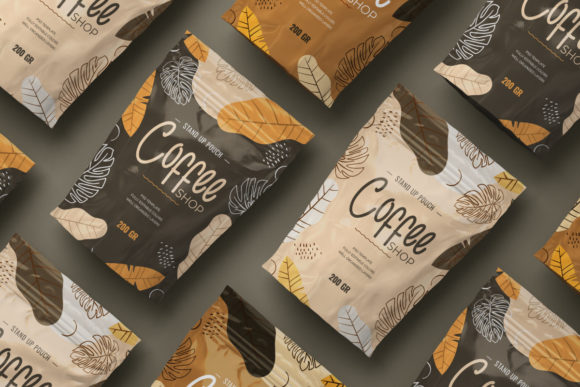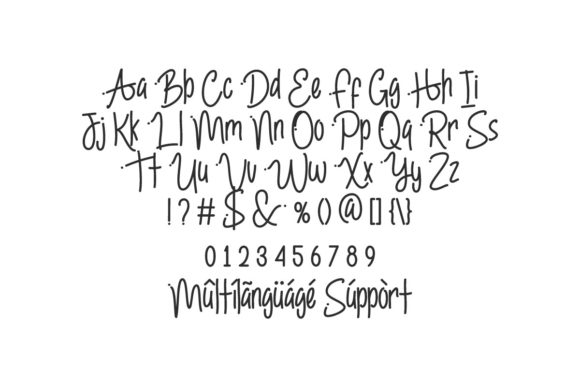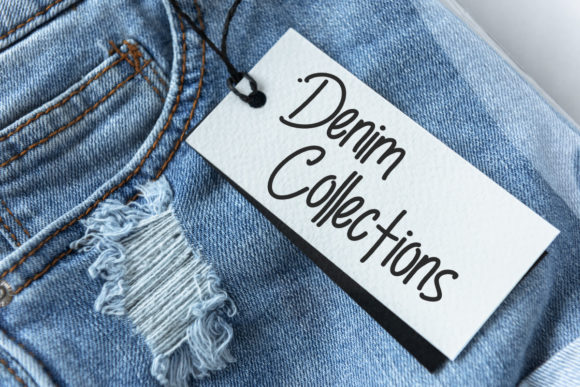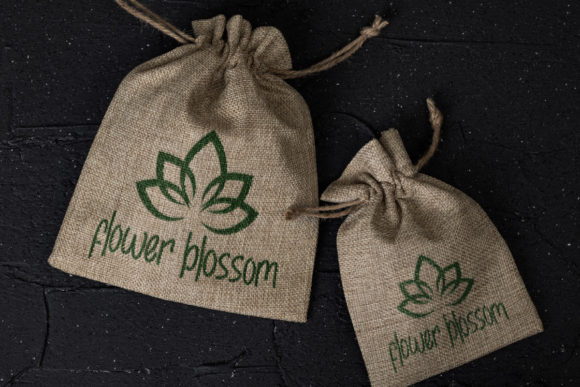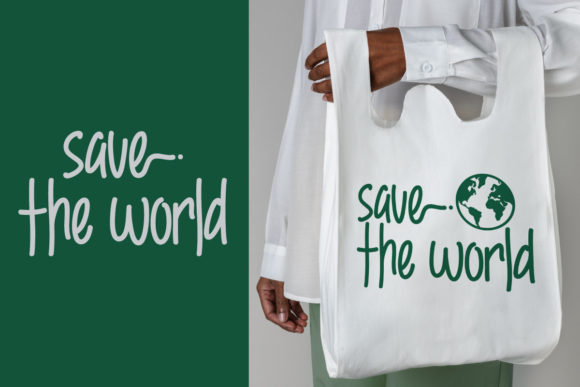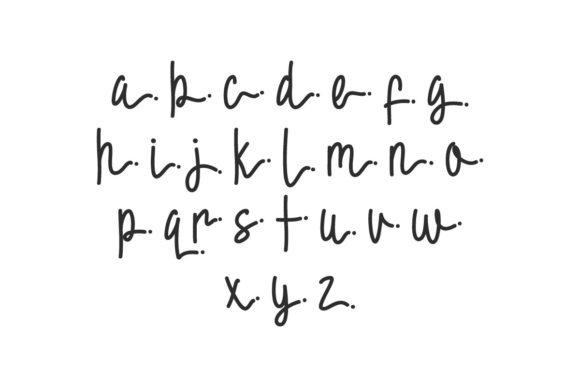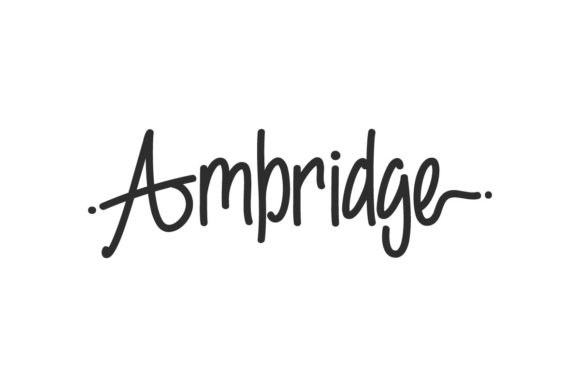
Introducing Ambridge Font: The Ultimate Handwritten Font for Creative Projects
Are you looking for a font that can add a touch of elegance and sophistication to your designs? Look no further than Ambridge Font! This beautiful and stylish handwritten font is perfect for creating stunning wedding invitations, gorgeous stationery art, eye-catching social media posts, and much more. In this article, we’ll dive into the world of Ambridge Font and explore its features, benefits, and uses.
What is Ambridge Font?
Ambridge Font is a modern handwritten font that boasts a unique and ravishing style. Its elegant and flowing lines make it perfect for designs that require a touch of sophistication and glamour. The font is carefully crafted to provide a beautiful and consistent look, making it ideal for a wide range of creative projects.
Features of Ambridge Font
- Handwritten style: Ambridge Font features a beautiful handwritten style that adds a personal touch to your designs.
- Elegant and sophisticated: The font’s elegant and sophisticated look makes it perfect for designs that require a touch of glamour.
- Consistent look: Ambridge Font is carefully crafted to provide a consistent look, ensuring that your designs look professional and polished.
- Multilingual support: The font supports multiple languages, making it perfect for designers who work with clients from around the world.
Benefits of Using Ambridge Font
So, why should you choose Ambridge Font for your designs? Here are just a few benefits of using this amazing font:
- Adds elegance to your designs: Ambridge Font adds a touch of elegance and sophistication to your designs, making them stand out from the crowd.
- Perfect for wedding designs: The font’s romantic and elegant style makes it perfect for wedding invitations, wedding stationery, and other wedding-related designs.
- Versatile: Ambridge Font can be used for a wide range of creative projects, from social media posts to business cards and brochures.
- Easy to read: The font is carefully crafted to be easy to read, making it perfect for designs that require a clear and concise message.
Uses of Ambridge Font
Ambridge Font is a versatile font that can be used for a wide range of creative projects. Here are just a few ideas to get you started:
- Wedding invitations: Create stunning wedding invitations that will leave a lasting impression on your guests.
- Stationery art: Use Ambridge Font to create beautiful stationery art, including greeting cards, thank you cards, and more.
- Social media posts: Add a touch of elegance to your social media posts and make them stand out from the crowd.
- Business cards: Create professional and elegant business cards that will make a lasting impression on your clients.
- Brochures and flyers: Use Ambridge Font to create eye-catching brochures and flyers that will grab the attention of your target audience.
Tips for Using Ambridge Font
Here are a few tips for using Ambridge Font in your designs:
- Pair it with a sans-serif font: Pair Ambridge Font with a sans-serif font to create a beautiful and contrasting look.
- Use it for headings: Use Ambridge Font for headings and titles to add a touch of elegance to your designs.
- Experiment with colors: Experiment with different colors to find the perfect combination that works with your design.
In conclusion, Ambridge Font is a beautiful and stylish handwritten font that is perfect for creative projects that require a touch of elegance and sophistication. Its elegant and flowing lines make it perfect for wedding invitations, stationery art, social media posts, and much more. With its consistent look, multilingual support, and ease of use, Ambridge Font is a must-have font for designers and crafters. So, fall for its ravishing style and use it to create gorgeous designs that will leave a lasting impression on your audience!